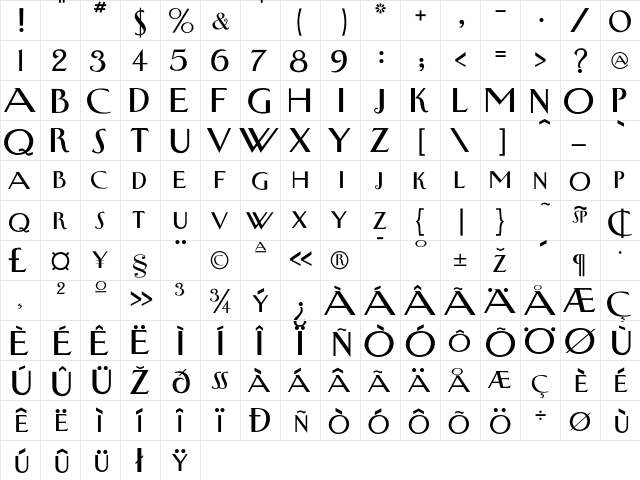
Newyorkertype Regular
Design Context for Newyorkertype Typeface
Newyorkertype is a composed and adaptable typeface that performs quietly and consistently across a wide range of design contexts.